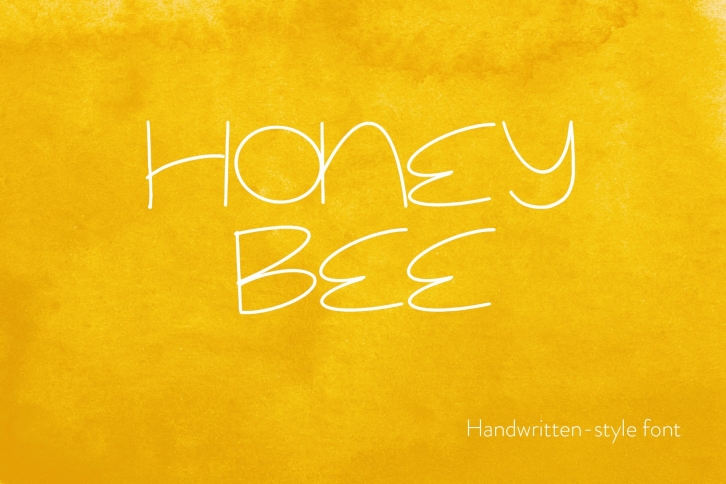
"Grab this whimsical, handwritten style font featuring a personable combo of uppercase and lowercase letters."
'Honey Bee' is the perfect font option for blog images, titles and headers, digital graphics, quotes, and more. It's a great addition to your collection for any bloggers, entrepreneurs, influencers, creatives, designers, and more! ___
This font includes the 26-letter alphabet and 10 digits. Any punctuations are not included in this initial version but stay tuned for free updates coming soon that will include them!